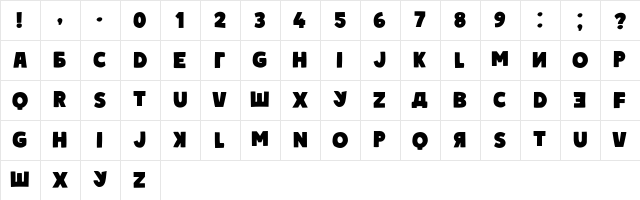
Ukrainian Princess Regular
Design Context for Ukrainian Princess Typeface
Ukrainian Princess offers clean, dependable letterforms without strong stylistic allegiance, making it a practical choice for designers who need flexibility.